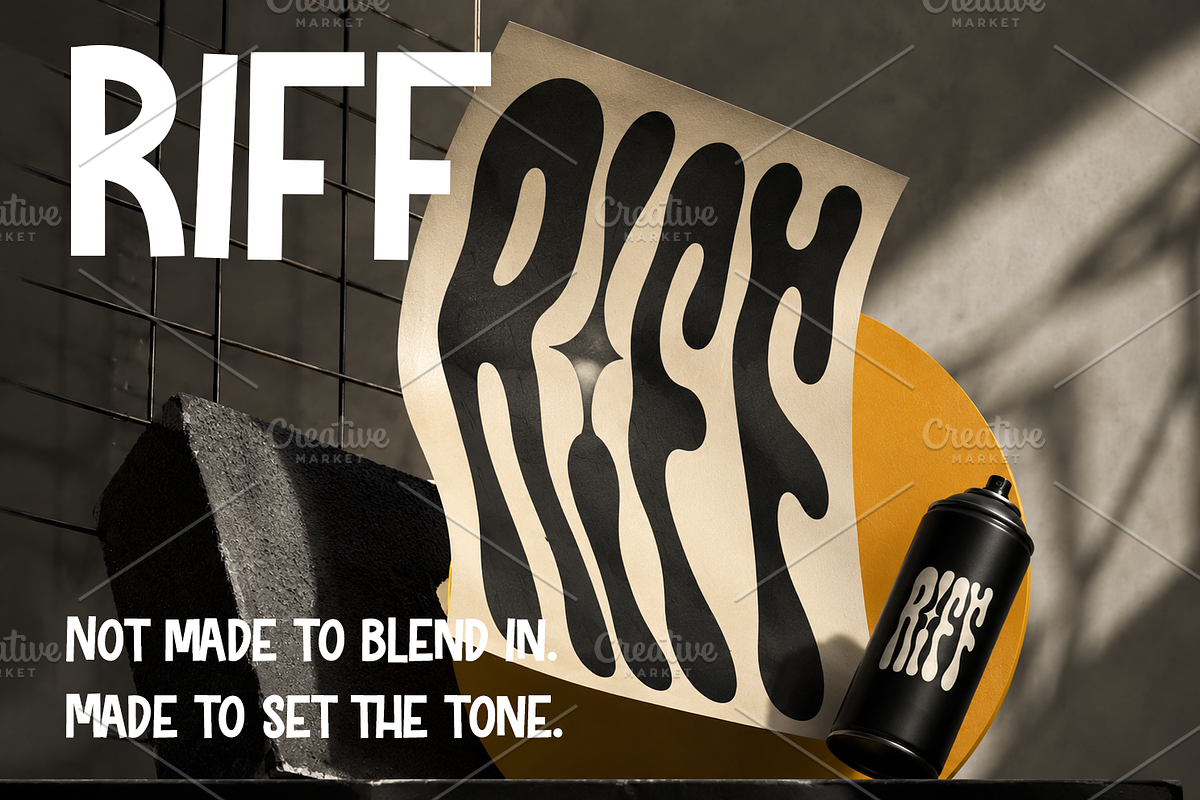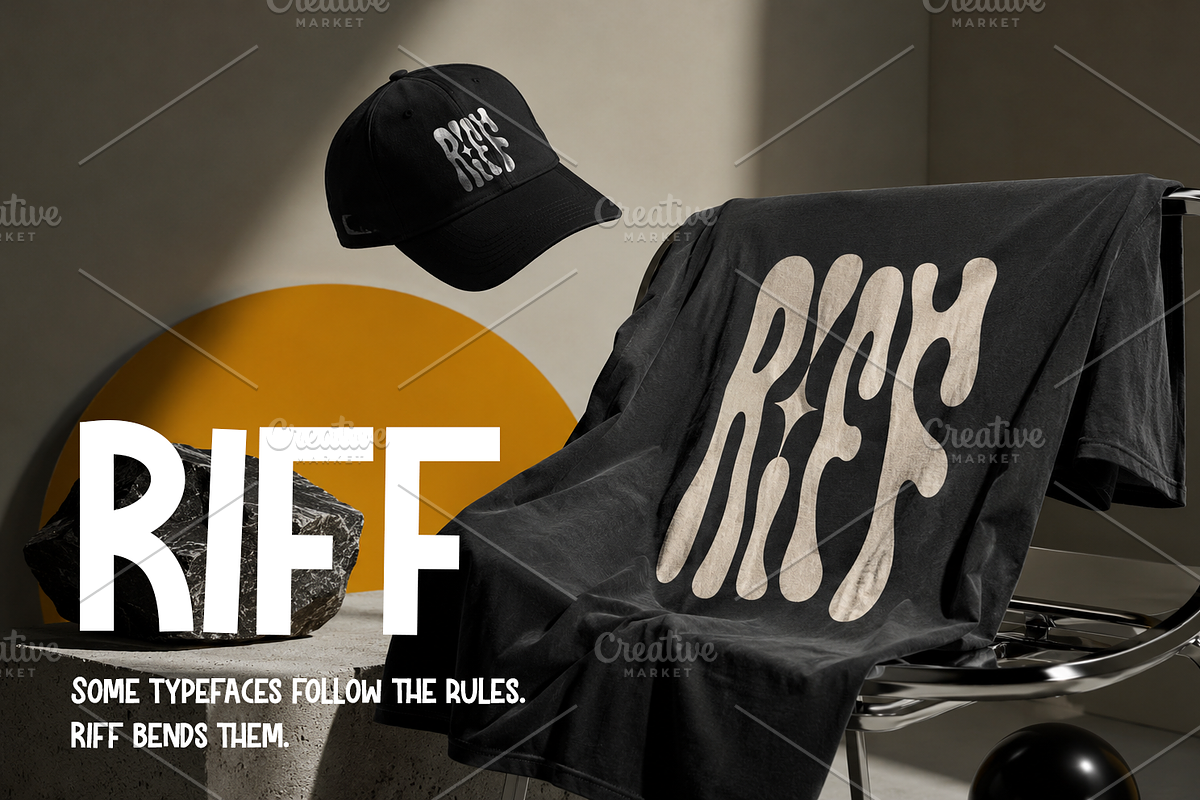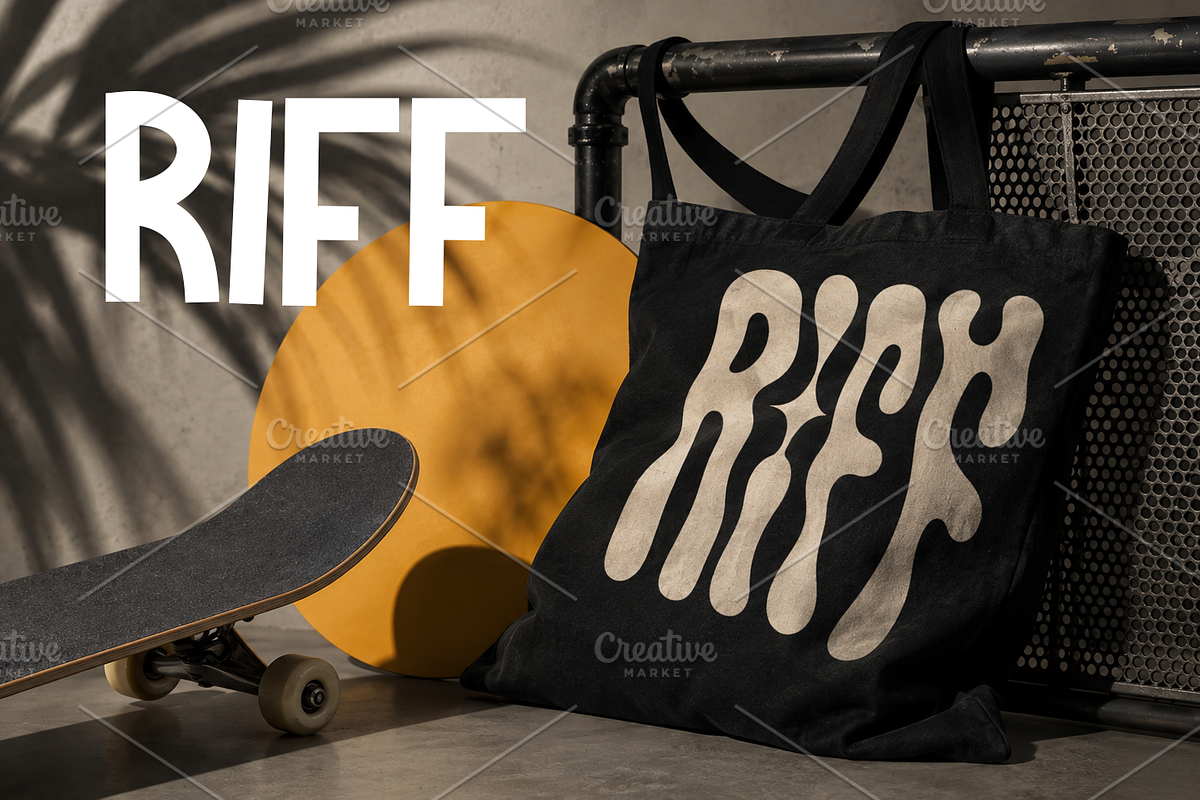
Meet Riff.
Some typefaces follow the rules.
Riff bends them.
Bold, condensed, and unapologetically expressive, Riff brings rhythm and attitude to every word.
Its distinctive proportions and playful curves create a visual voice that feels confident, contemporary, and impossible to ignore.
Made for brands that want more than clean typography.
Perfect for fashion, streetwear, music, posters, packaging, editorial design, campaigns, and bold visual identities.
Not made to blend in.
Made to set the tone.